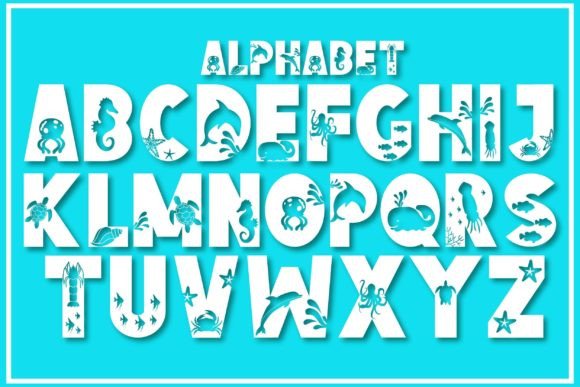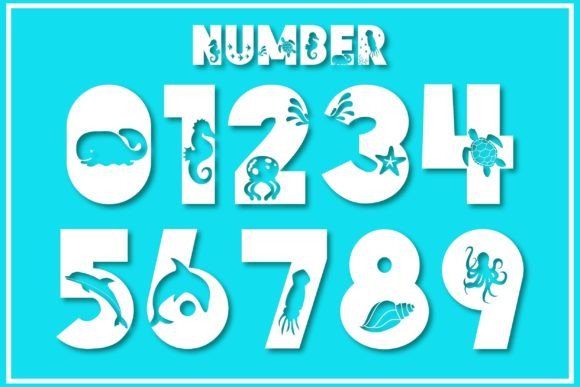
Introduction to Ocean World Font
Do you remember the excitement of planning a birthday party for a little one, or the joy of designing a logo for a swimming club? For many of us, these moments spark creativity and bring a smile to our faces. One of the key elements that can elevate these projects is the right font, and that’s where the Ocean World Font comes in.
This adorable decorative font is perfect for adding a touch of youth and joy to your designs. Whether you’re creating party invitations, social media graphics, or any other high-quality creative project, the Ocean World Font is sure to bring a smile to your audience’s faces. With its transparent background and free download option, it’s a valuable resource for designers looking to add a unique touch to their work.
Key Features of Ocean World Font
• High-quality, hand-drawn design suitable for creative projects.
• Includes a range of unique, ocean-inspired characters and symbols.
Honest Review: Ocean World Font
I recently stumbled upon the Ocean World Font, a high quality design resource that I’m excited to share my thoughts on. As a designer, I’m always on the lookout for unique fonts that can elevate a creative project and add that extra oomph. Ocean World Font delivers.
What works well: ✨ The Ocean World Font features a stunning, hand-drawn design that’s perfect for ocean-inspired or nautical-themed projects. It’s available for free download, which is a huge plus in my book. I also appreciate the transparent background, which makes it easy to use in a variety of design applications.
Some potential limitations: ⚠️ The font may not be suitable for projects that require a more formal or traditional look. Additionally, the font’s design may be a bit too playful for certain audiences.
Overall, I’m really impressed with the Ocean World Font. It’s a fantastic addition to any designer’s toolkit, and I can see it being used in a wide range of creative projects. Whether you’re working on a brochure, poster, or website, Ocean World Font is definitely worth checking out.
Here are some key features to keep in mind:
• High-quality, hand-drawn design
• Transparent background
• Perfect for ocean-inspired or nautical-themed projects
Here are some tips for getting the most out of Ocean World Font:
Use it in conjunction with other ocean-themed design elements, such as images of waves or sea creatures.
Customize the font size and color to fit your design and make it stand out.
Use it in a variety of creative projects, such as brochures, posters, or social media graphics.
Some common use cases for Ocean World Font include:
Designing brochures or flyers for ocean-related businesses or events.
Creating social media graphics or ads for ocean-related products or services.
Designing posters or signs for ocean-themed events or exhibitions.